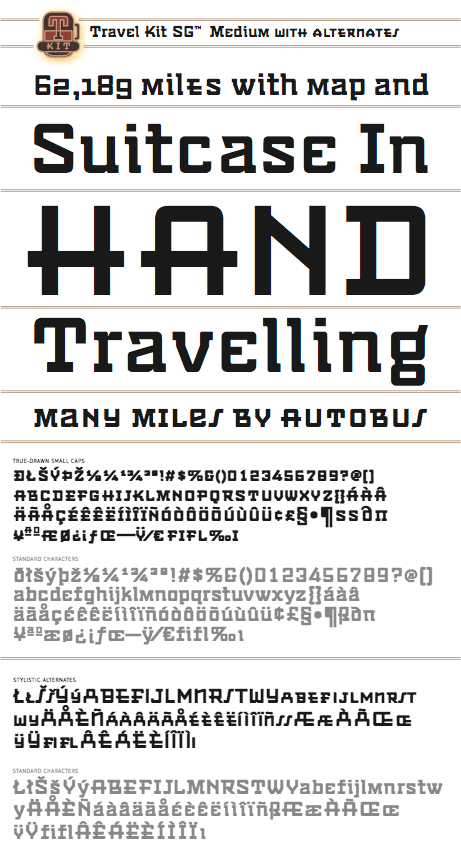
Travel Kit Medium w/ Alternates (Spiece Graphics)
Jim Spiece enjoys resurrecting old typefaces. And finding a complete set of characters can often be a challenging task. It takes him down into the musty basements of public libraries and out into the world of flea markets and hole-in-the-wall bookstores. After careful scanning and hand-outlining, he must occasionally dig deeper for a missing punctuation mark or double f-ligature. Jim chuckles, 'These are all minor inconveniences when you consider you've brought these faces back from obscurity and found them new homes. Besides, it's fun. In one sense, my own designs are a lot easier because they never had a previous life!' You can check out Jim's revival of the Bernhard Gothic SG Family offered by FontHaus or his popular ITC Blair Family.View other fonts from Spiece Graphics
Here's an intriguing mixture of 1930s deco and modern tech fashion.Travel Kit Medium is a sturdy semi-serif hybrid with one foot in the past and another in the present. It is slightly low-waisted with extended crossbars on the capital A, E, F, H, K, and P. But the capital B, M, R and X are distinctively contemporary with the E and M repeated as unicase letters in the lowercase.
Optional retro characters (notably the unicase e and m) have been provided if you prefer a more traditional overall look - and your software allows access to these characters. Simply find and replace the more modern letters with the older ones.
In addition, small caps with even more alternate characters have been included for greater flexibility and convenience.